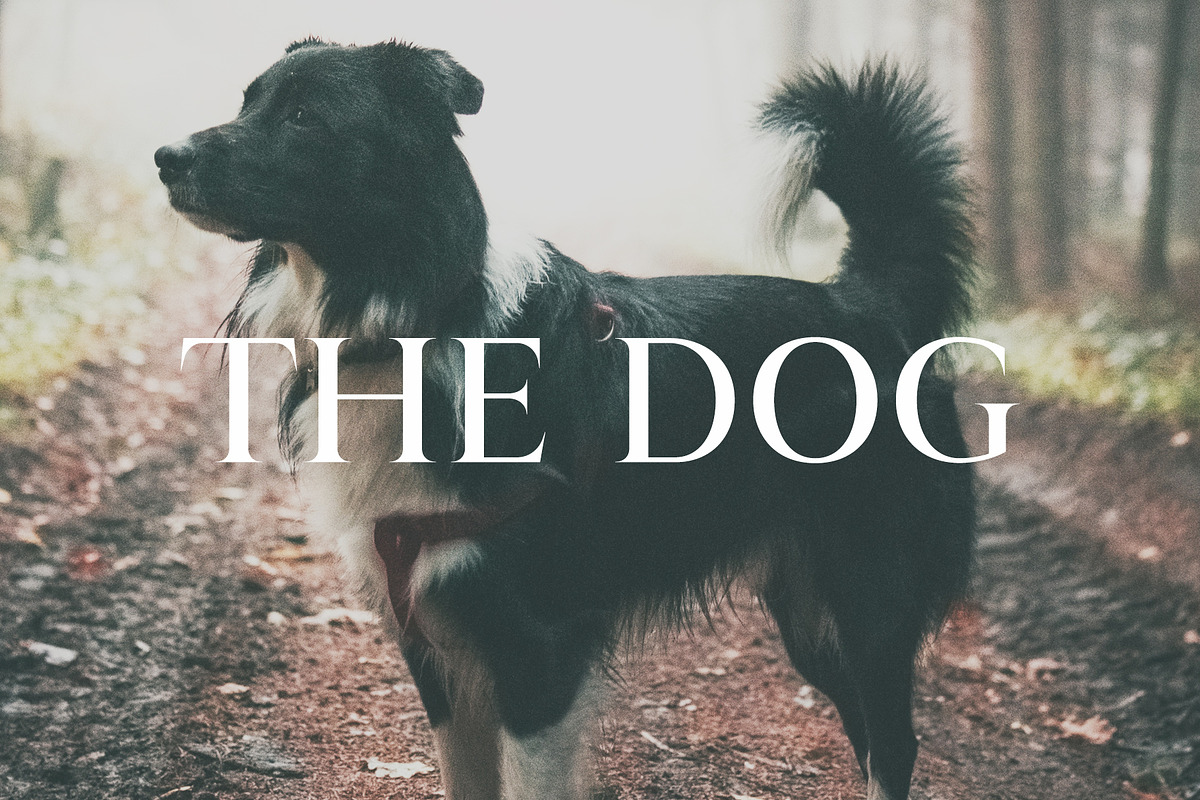
Wacian Serif Font Family
Wacian is a unique modern serif font. It contains 5 weights with all basic glyphs with Non-English characters. Wacian can be used for headlines, posters, branding, packaging, presentations, logo, quotes, titles, magazines headings, web layouts, advertising, invitations, packaging design, books, and nearly any creative design.
Included Features:
- Font Weight: Regular, Light, Round and Bold
Wacian Font Features:
- Uppercase Letters
- Lowercase Letters
- Non English Characters ( Latin Supplement + Latin Extended A)